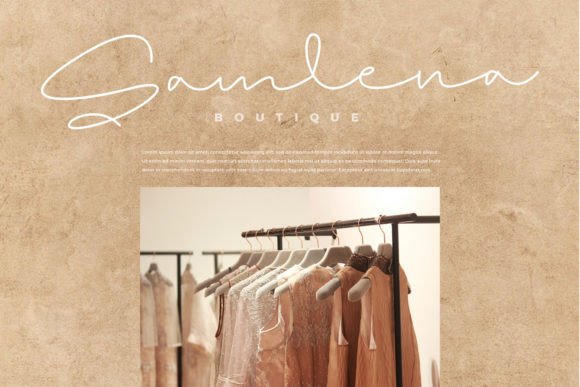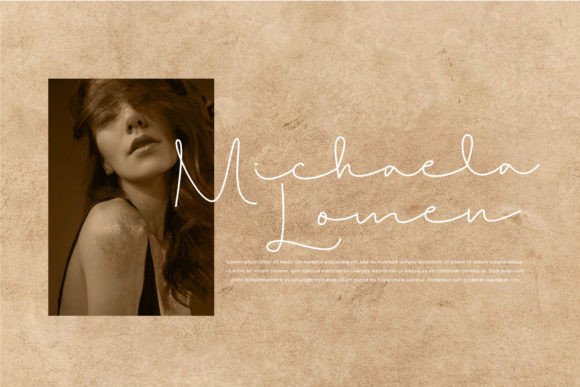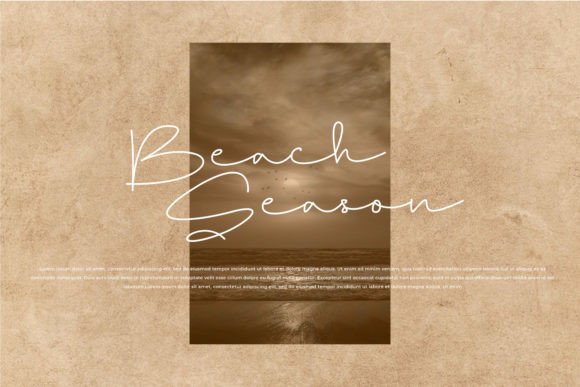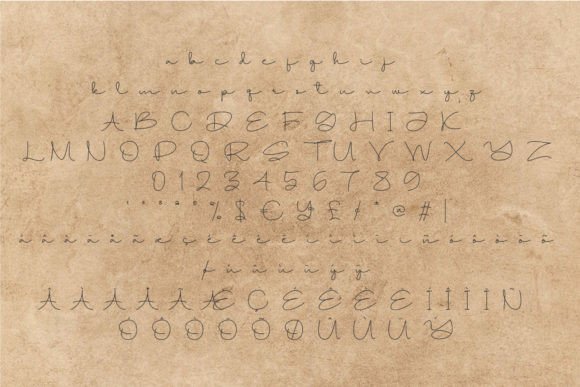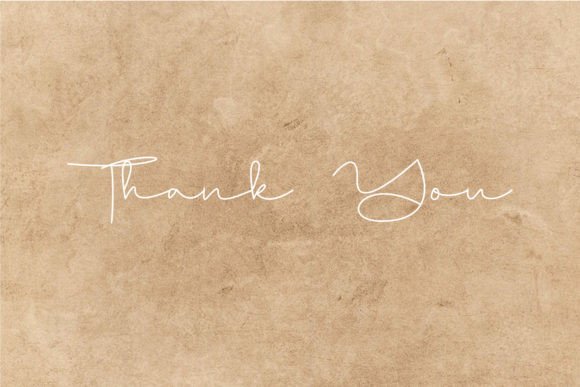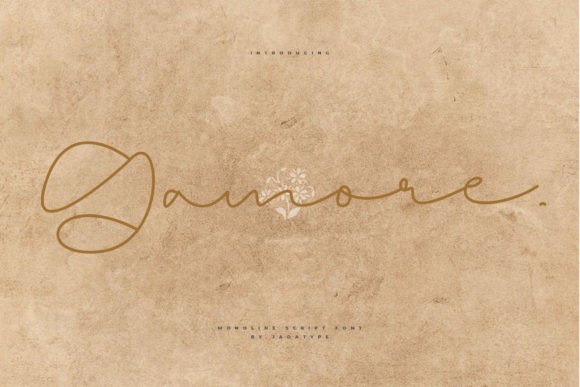
Gamore Font: Elevate Your Designs with a Stylish Monoline Handwritten Font
Are you tired of using the same old fonts in your designs? Look no further than Gamore Font, a beautiful handwritten font with a stylish monoline that is sure to take your creative projects to the next level. With its unique blend of elegance and playfulness, Gamore Font is perfect for a wide range of applications, from logotypes and branding to music covers and social media graphics.
What is Gamore Font?
Gamore Font is a carefully crafted handwritten font that features a stylish monoline design. This means that the font has a consistent line width, giving it a sleek and modern look that is perfect for designs that require a touch of sophistication. The font is highly legible and versatile, making it suitable for use in a variety of contexts, from headings and titles to body text and captions.
What Can I Use Gamore Font For?
The possibilities are endless with Gamore Font! This beautiful font can be used for:
- Logotype and branding: Create a lasting impression with a custom logotype that showcases your brand’s personality and style.
- Music covers: Add a touch of elegance to your music covers and make them stand out in a crowded market.
- Social media graphics: Elevate your social media presence with eye-catching graphics that feature Gamore Font.
- Product design: Use Gamore Font to add a personal touch to your product designs, from packaging to labels.
- Handwritten notes and quotes: Add a touch of whimsy and personality to your handwritten notes and quotes.
Why Choose Gamore Font?
So why choose Gamore Font over other fonts on the market? Here are just a few reasons:
- Unique and stylish: Gamore Font has a unique and stylish design that is sure to make your designs stand out.
- Highly legible: The font is highly legible, even at small sizes, making it perfect for use in a variety of contexts.
- Versatile: Gamore Font can be used for a wide range of applications, from headings and titles to body text and captions.
- Elegant and playful: The font has a perfect balance of elegance and playfulness, making it suitable for a wide range of designs.
- Experiment with different sizes: Gamore Font looks great at a variety of sizes, from large headings to small captions.
- Play with color: The font looks great in a variety of colors, from bold and bright to soft and pastel.
- Mix and match: Try pairing Gamore Font with other fonts to create a unique and interesting look.